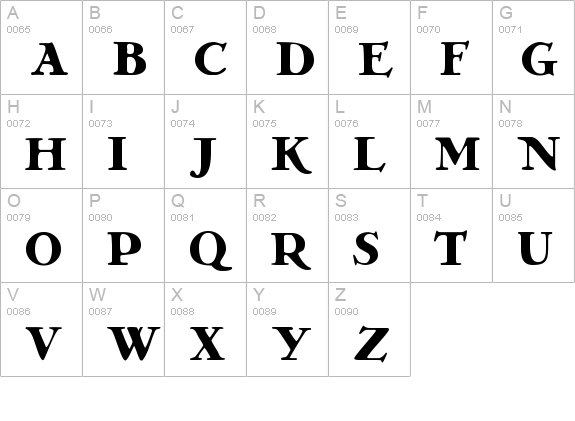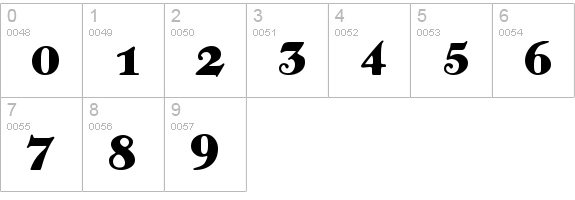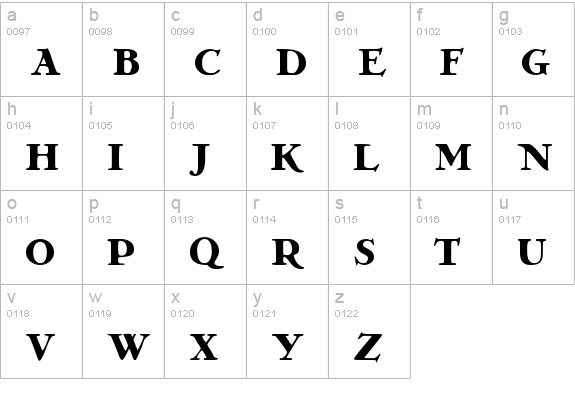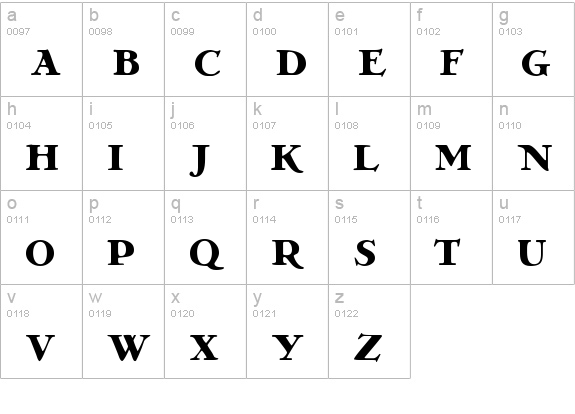
GrekoDeco Bold Font Details
GrekoDeco Bold is a strong, high-contrast variant in the GrekoDeco typeface family \xE2\x80\x94 well suited to headlines, attention-grabbing titles, and strong calls-to-action.
GrekoDeco Bold is a striking and versatile display font that exudes a sense of modernity and sophistication. Featuring strong, geometric shapes and sharp lines, this font is perfect for making a bold statement in your design projects. Its clean and minimalistic design makes it suitable for a wide range of applications, from branding to editorial design. The GrekoDeco Bold font is available for free download at FontsMarket.com, making it accessible to designers and creatives looking to add a touch of elegance and style to their work. Whether you're working on a logo, poster, or website, this font is sure to make a lasting impression with its unique and eye-catching aesthetic. Upgrade your design arsenal with GrekoDeco Bold today and unleash your creativity with this stunning typeface.